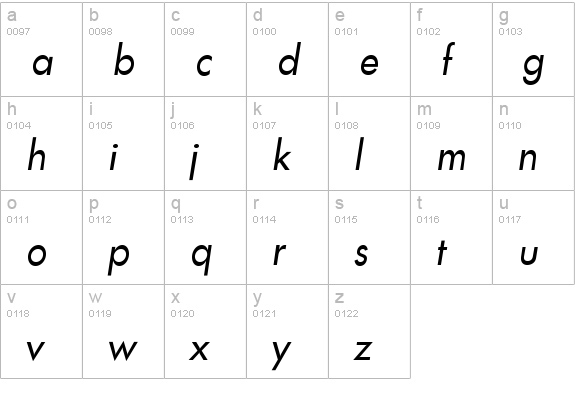
Limerick-RegularIta Font Details
Introducing Limerick-RegularIta font - a charming and elegant typeface that exudes sophistication and style. With its sleek and modern italics, this font is perfect for adding a touch of class to any design project. The clean lines and graceful curves of Limerick-RegularIta make it a versatile choice for a wide range of applications, from branding to editorial design. What's even better is that Limerick-RegularIta is completely free to download at FontsMarket.com! This means you can easily access this exquisite font without any cost, making it a valuable addition to your font library. Whether you're working on a creative project or simply looking to enhance your typography collection, Limerick-RegularIta is a must-have font that will elevate your designs to new heights. Download it today and let your creativity shine with this beautiful and freely available typeface.